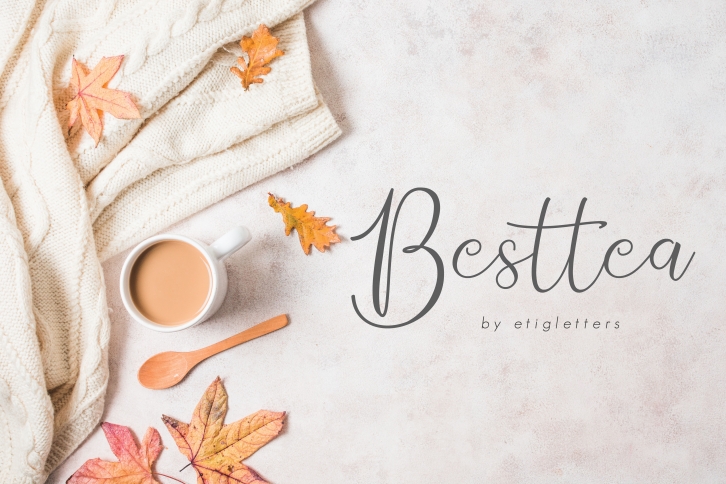
Besttea FONT Download
Besttea is a stylish script font.
It can be used for wedding invitations, business card, poster design, t-shirt designs, magazine design, greetings cards, and much more